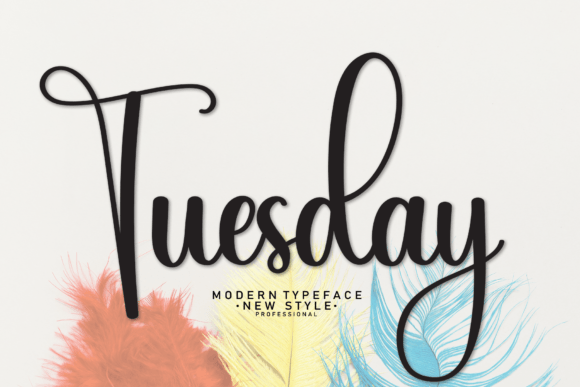
Introducing Tuesday Font, the epitome of elegance and creativity. This exquisite script font, crafted by the talented andikastudio, is designed to captivate and inspire. Tuesday Font's enchanting curves and flowing lines bring a touch of sophistication to your designs, making them stand out from the ordinary.
Unleash your creativity with Tuesday Font's versatility. Whether you're designing invitations, logos, posters, or social media graphics, this font will elevate your projects to new heights. Its timeless appeal adds a touch of charm and personality to any project, leaving a lasting impression on your audience.
Step into the world of Tuesday Font and unlock a world of possibilities. Its carefully crafted characters exude a sense of individuality and charm, making it the perfect choice for adding a personal touch to your designs. Tuesday Font will effortlessly transform your words into works of art, capturing the attention of all who lay eyes upon them.
Don't settle for ordinary fonts that blend into the background. Embrace the beauty and uniqueness of Tuesday Font and watch as your designs come to life with elegance and grace.